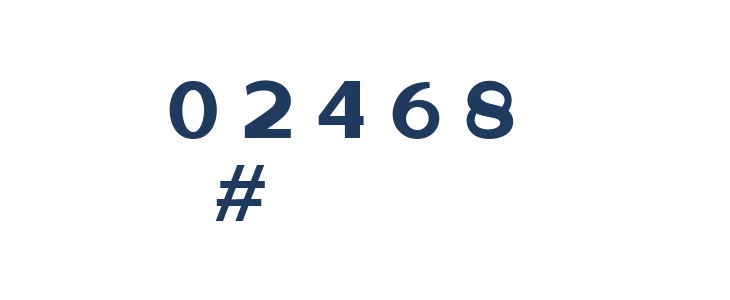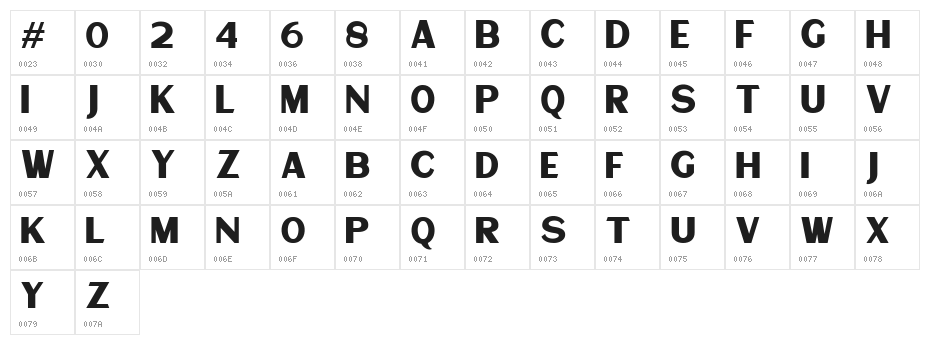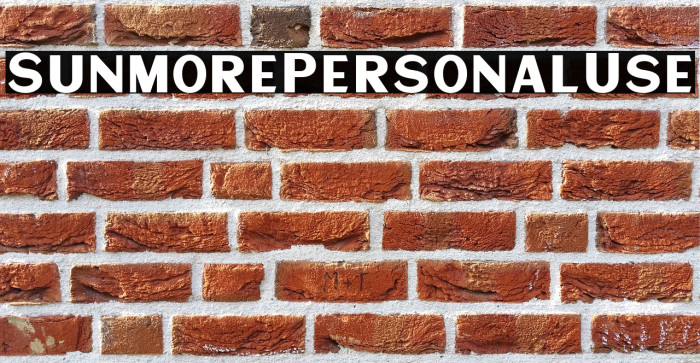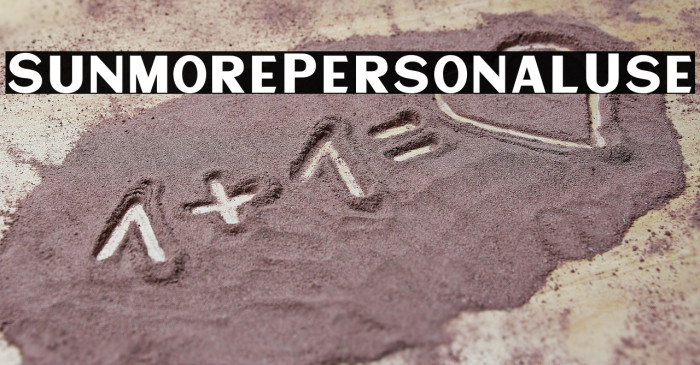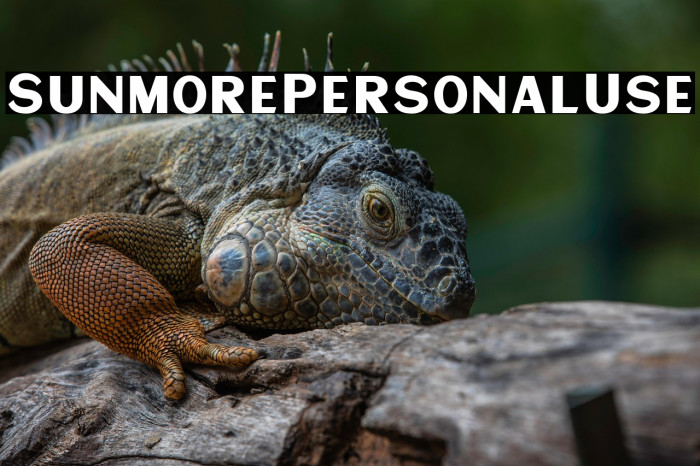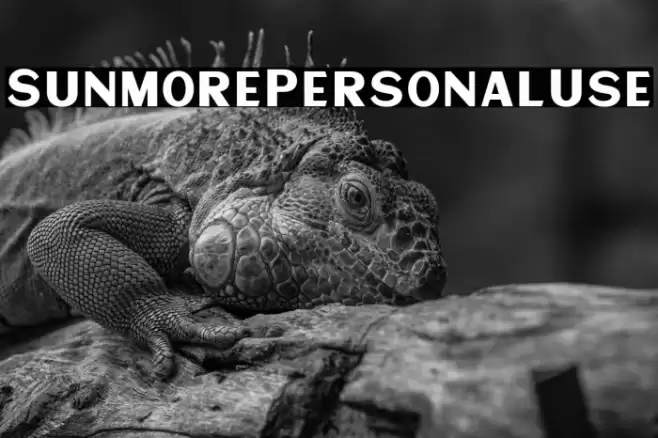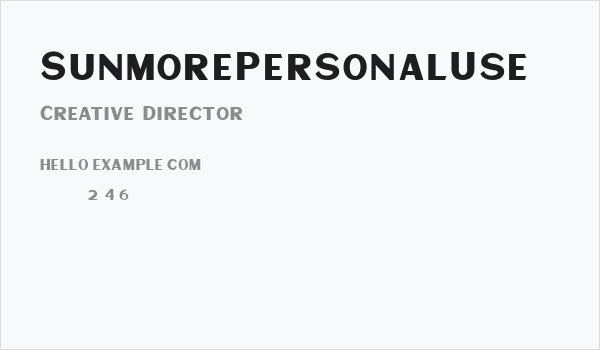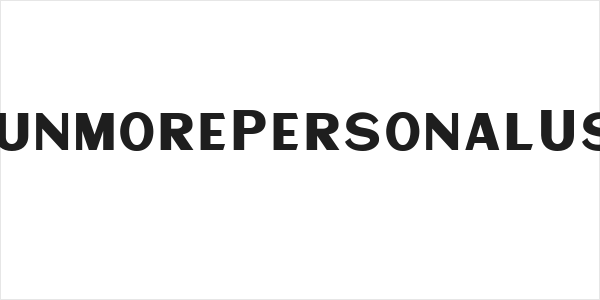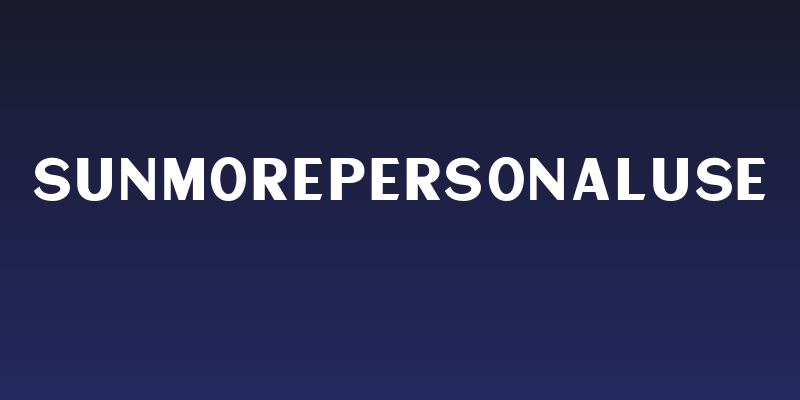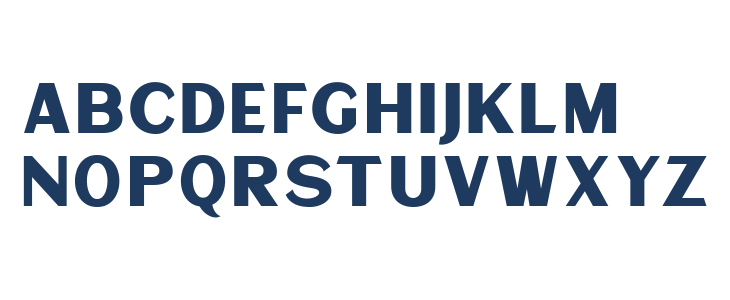
SunmorePersonalUse Font
SunmorePersonalUse Description
This font features bold, uppercase letters with a strong, impactful presence. The characters are evenly spaced, providing a clean and modern look. The numbers are equally bold, maintaining the same width and weight as the letters, ensuring consistency across all characters. The special characters, such as the hashtag, are designed with the same boldness, making them stand out effectively. This font is ideal for projects that require a strong visual impact, such as headlines or branding materials.
| Proposed Projects | Ideal for headlines, branding, posters, and any design requiring a strong visual impact. |